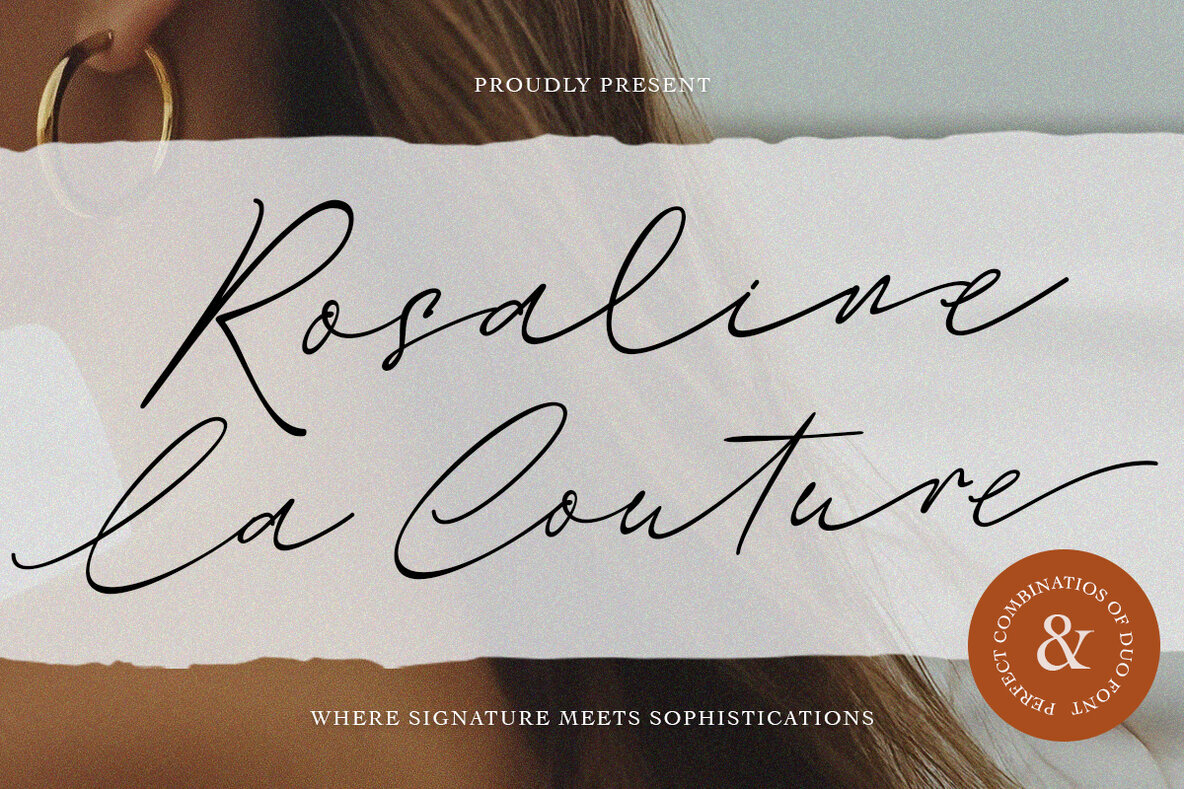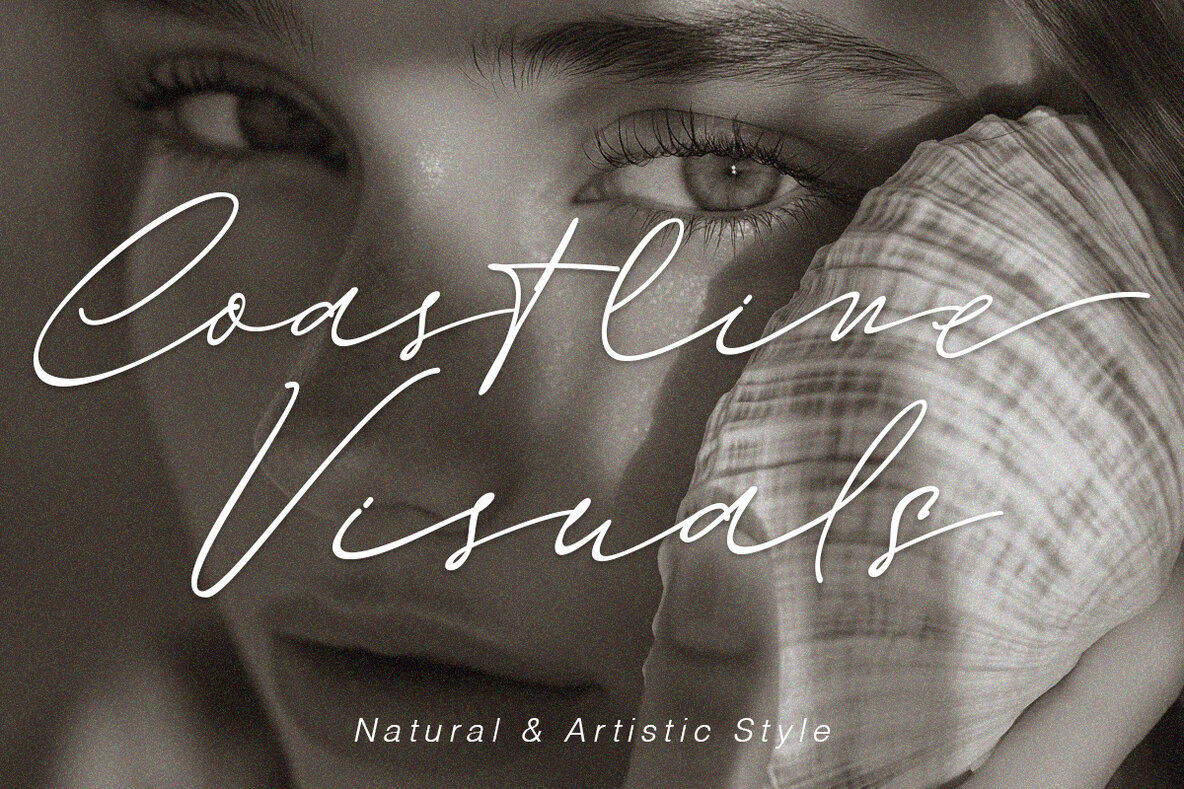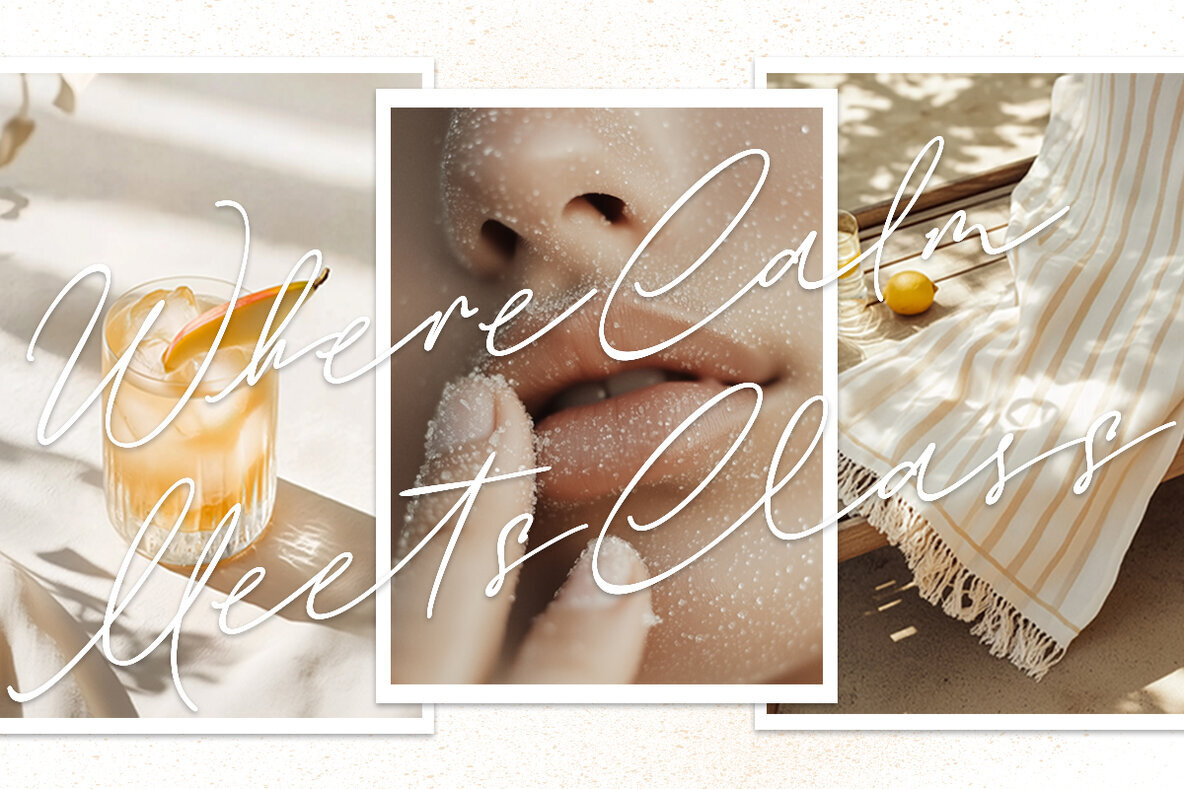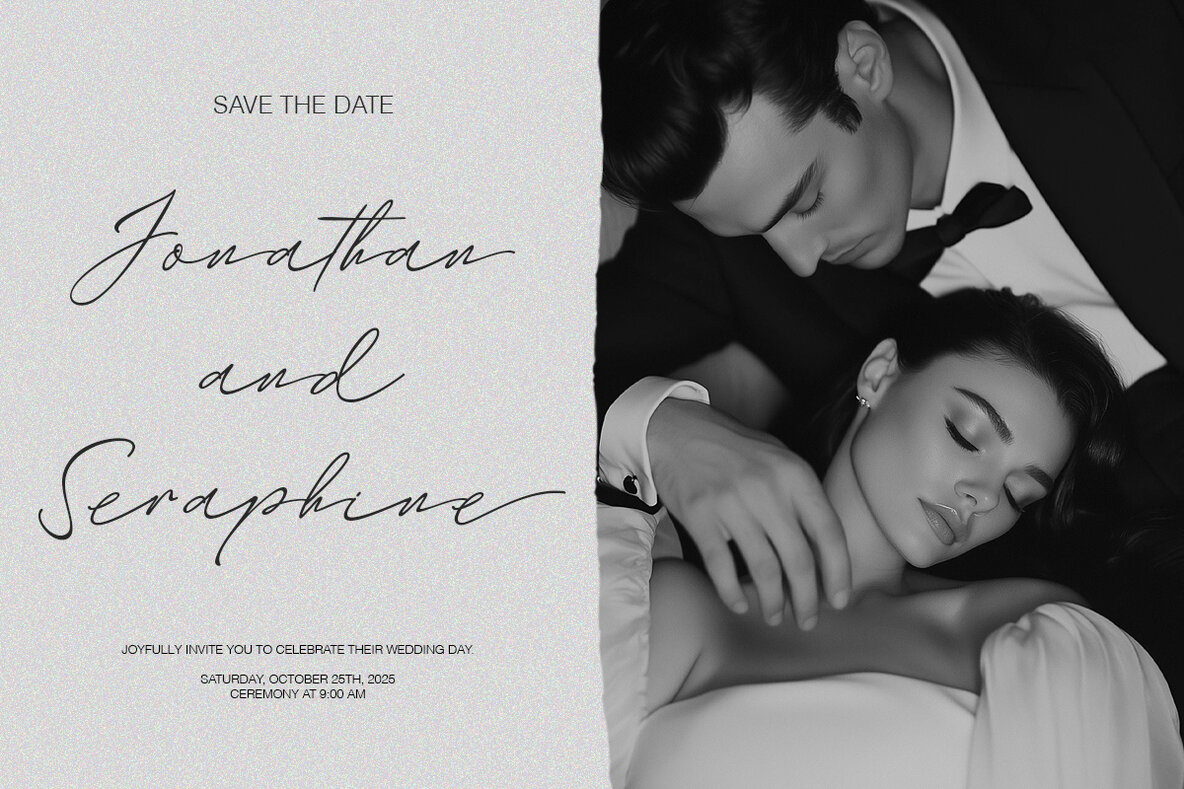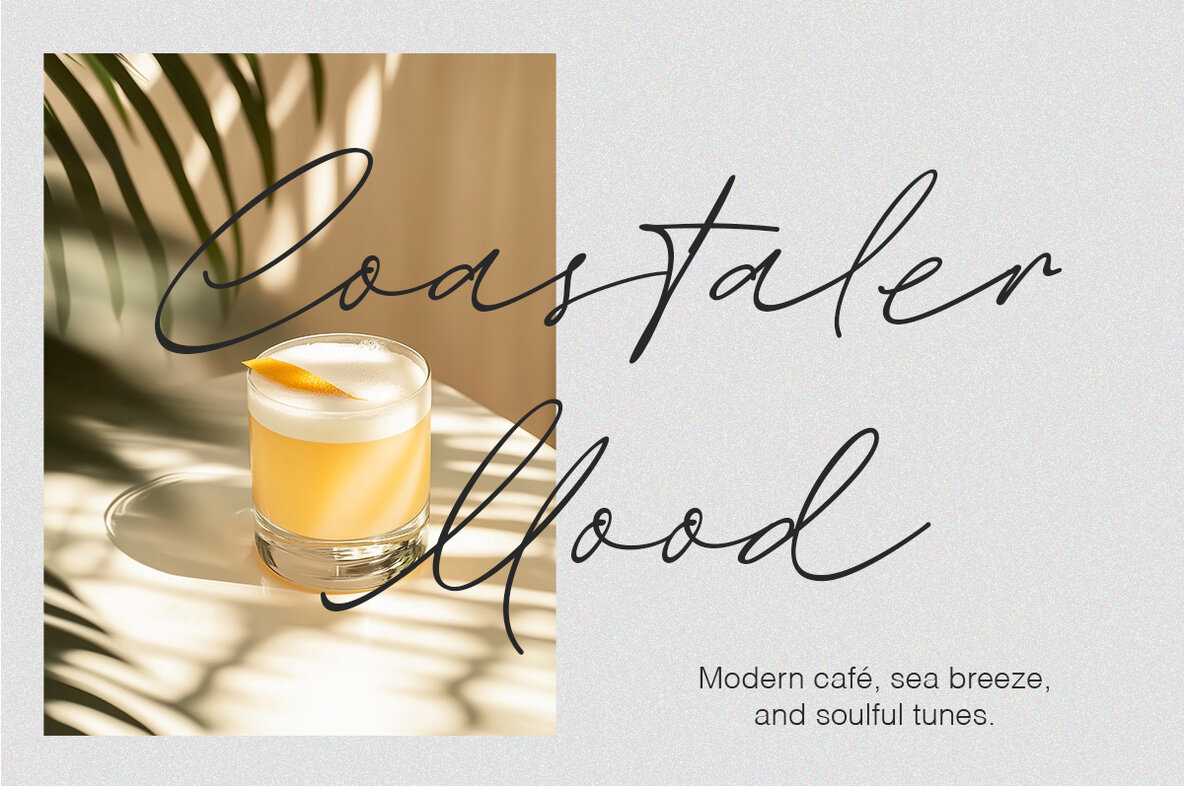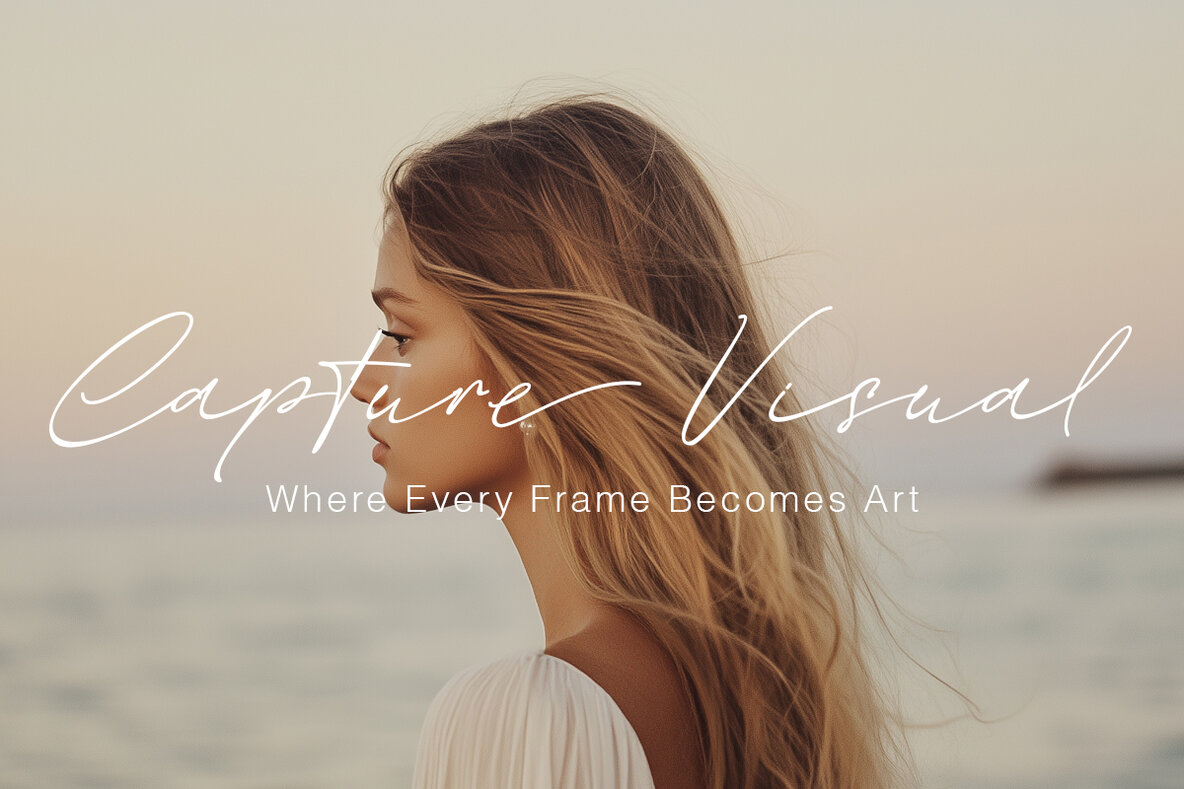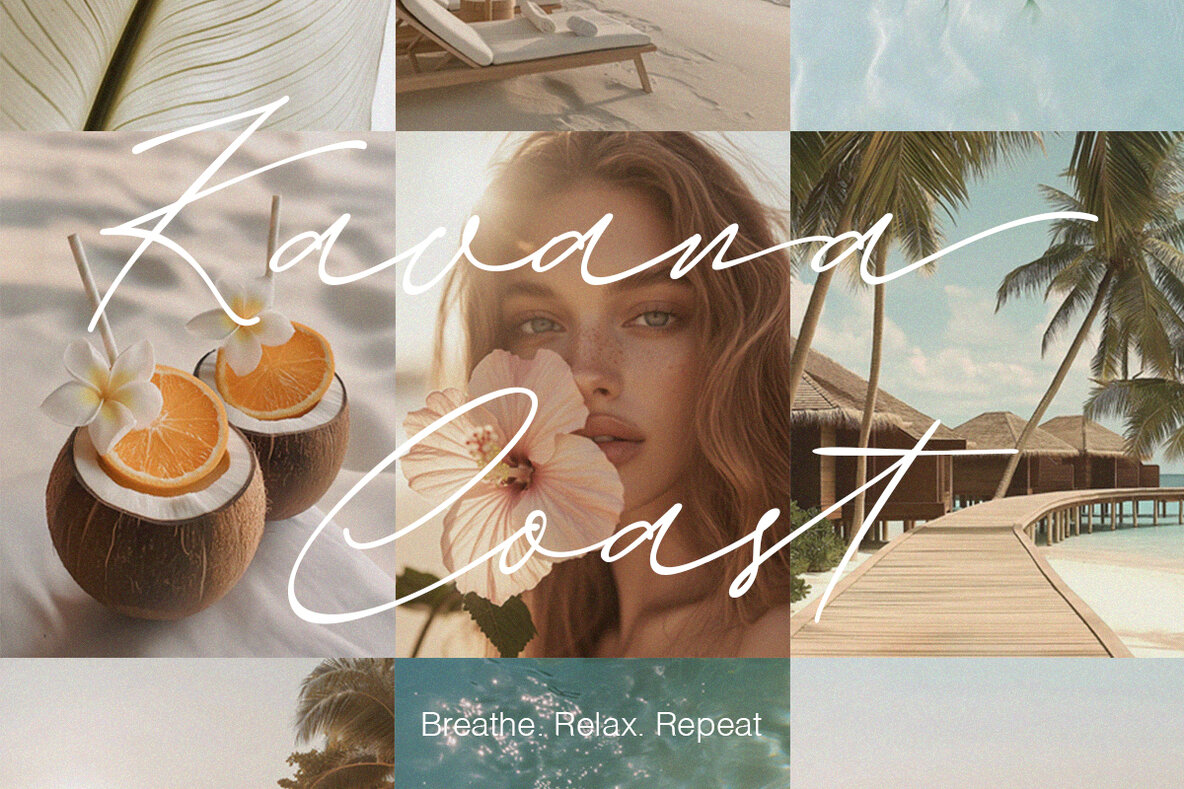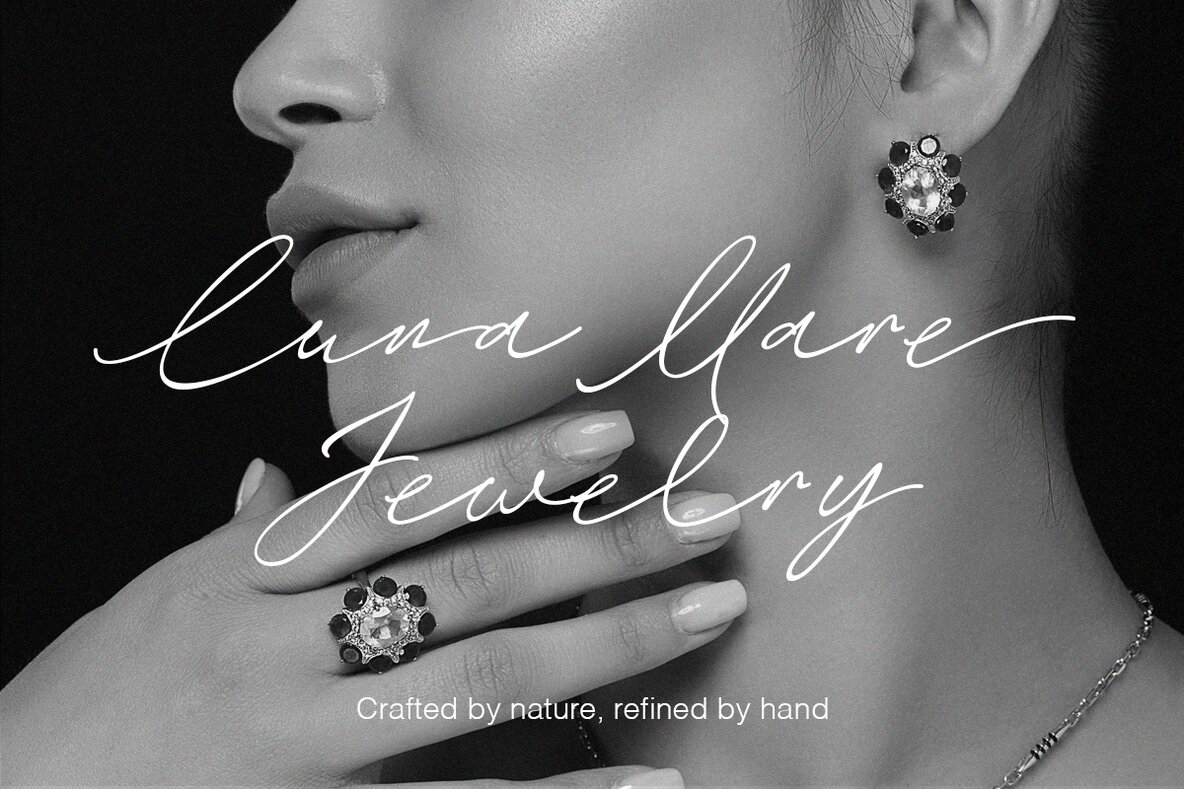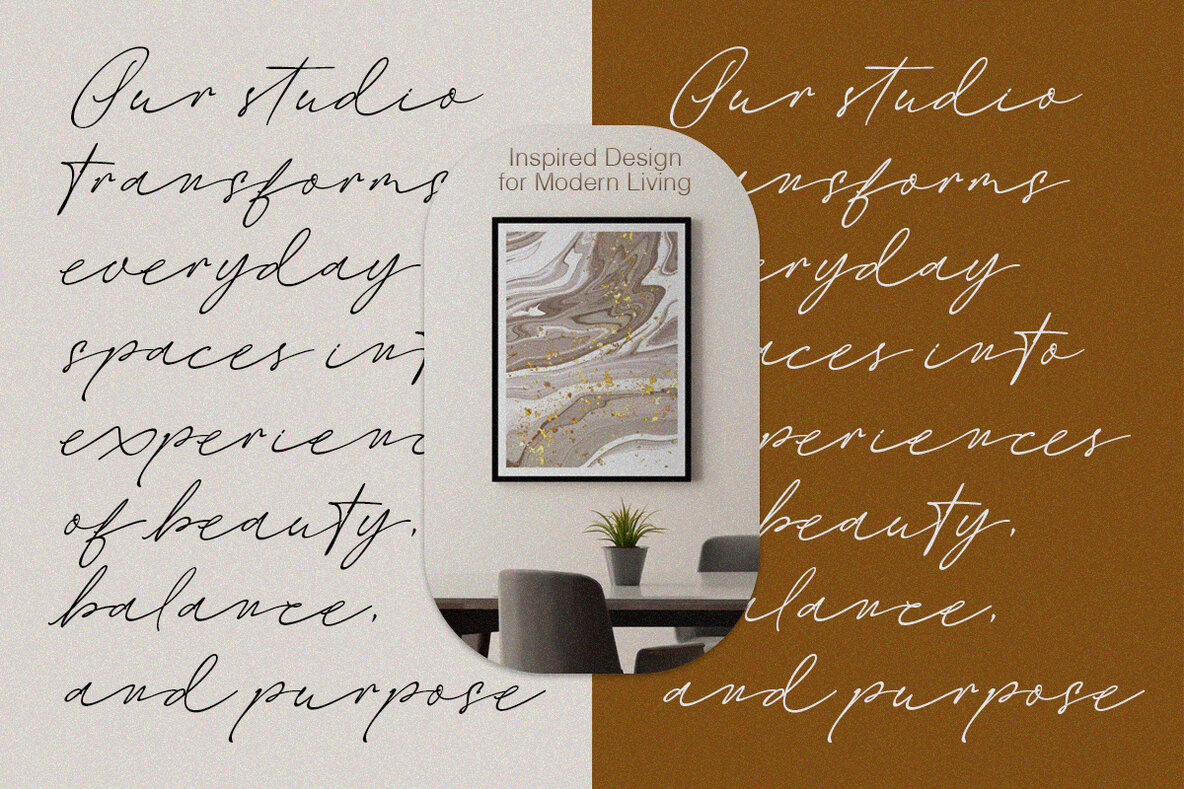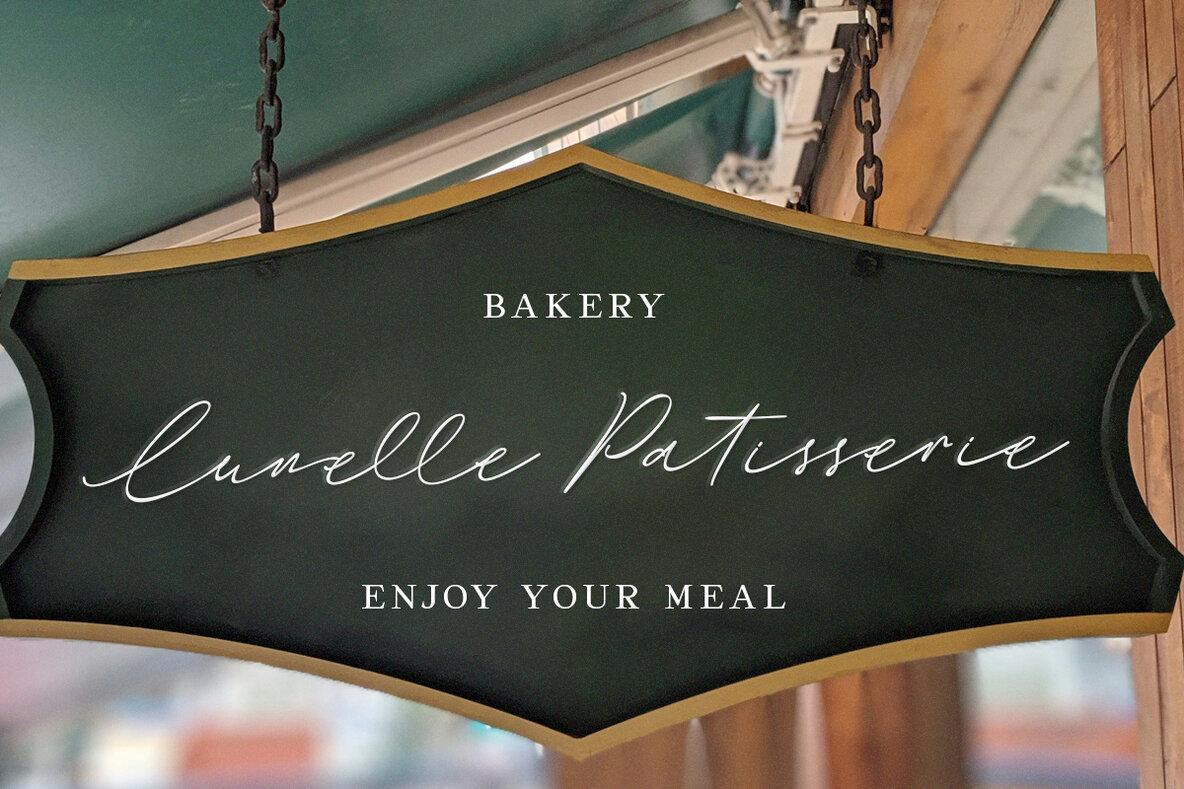
Rosaline La Couture Font
Rosaline La Couture emerges as a distinguished font duo, skillfully merging contemporary elegance with everlasting charm. The Rosaline Signature font offers a graceful handwriting style—soft, feminine, and undeniably luxurious. Its natural curves impart a personal and artistic flair to any composition. Complementing it is the Rosaline Serif, a classic typeface that exudes refinement with its balanced proportions and striking presence. Together, they create a harmonious blend of sophistication and structure, perfect for fashion branding, wedding invitations, boutique logos, packaging, and modern-vintage editorials. Features:Rosaline La Couture: A Distinctive Font Duo